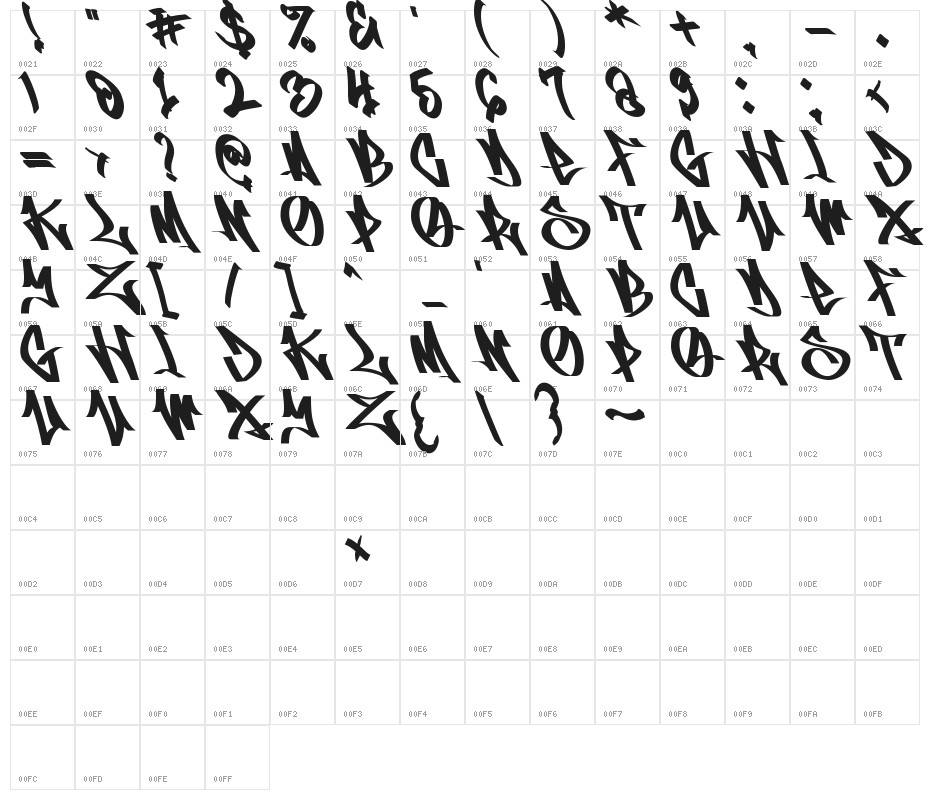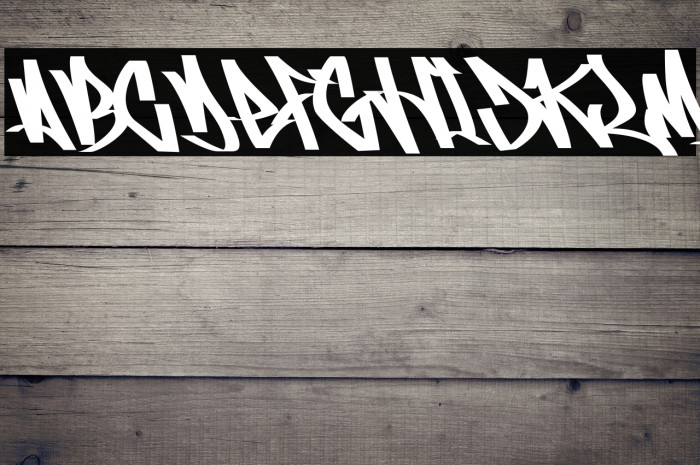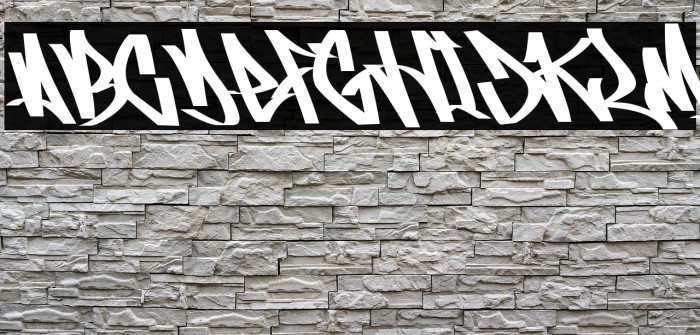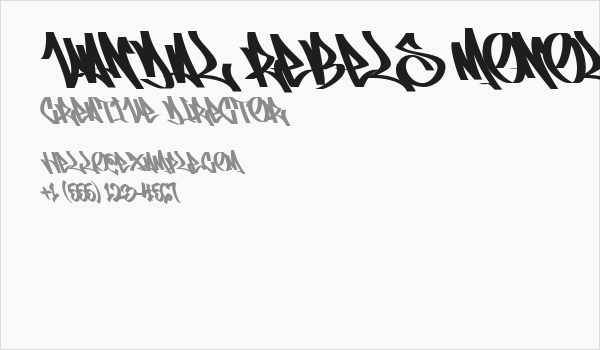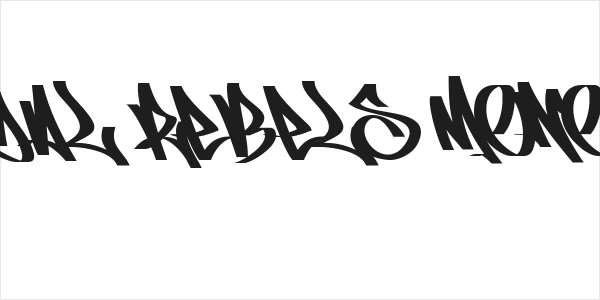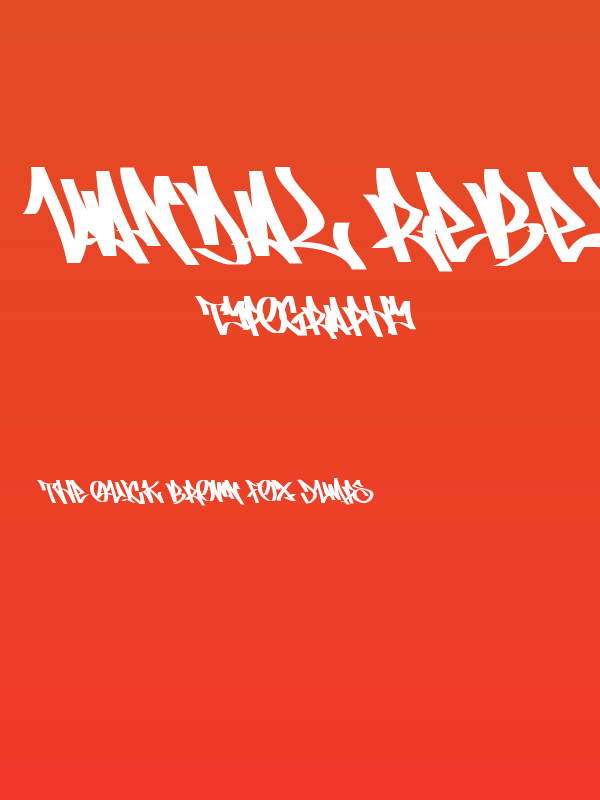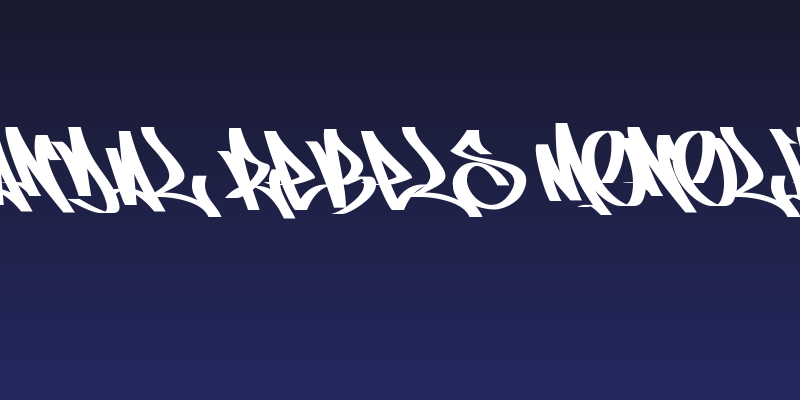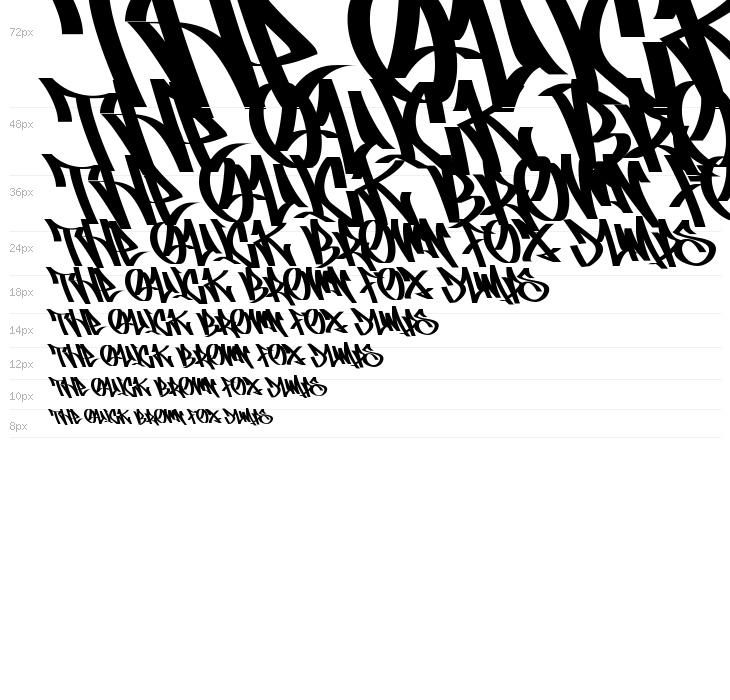
Vandal Rebels Monoline Font
Vandal Rebels Monoline Description
A bold, graffiti-style font with sharp angles and dynamic strokes, resembling street art and urban culture.
| Overall Style | Urban, Graffiti, Edgy |
| Use Case | Logos, Posters, Headlines |
| Proposed Projects | Street art designs, urban-themed posters, edgy branding. |